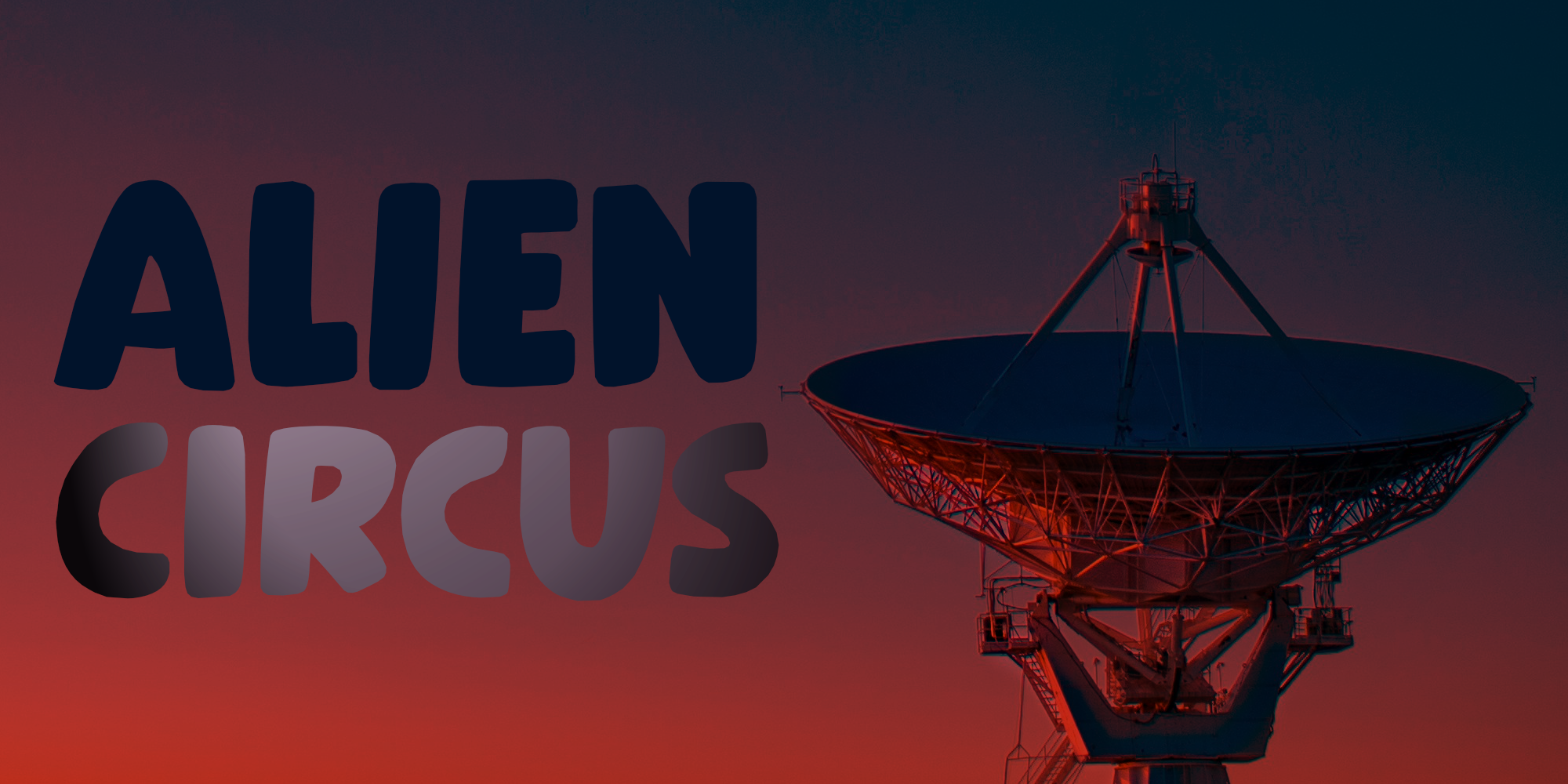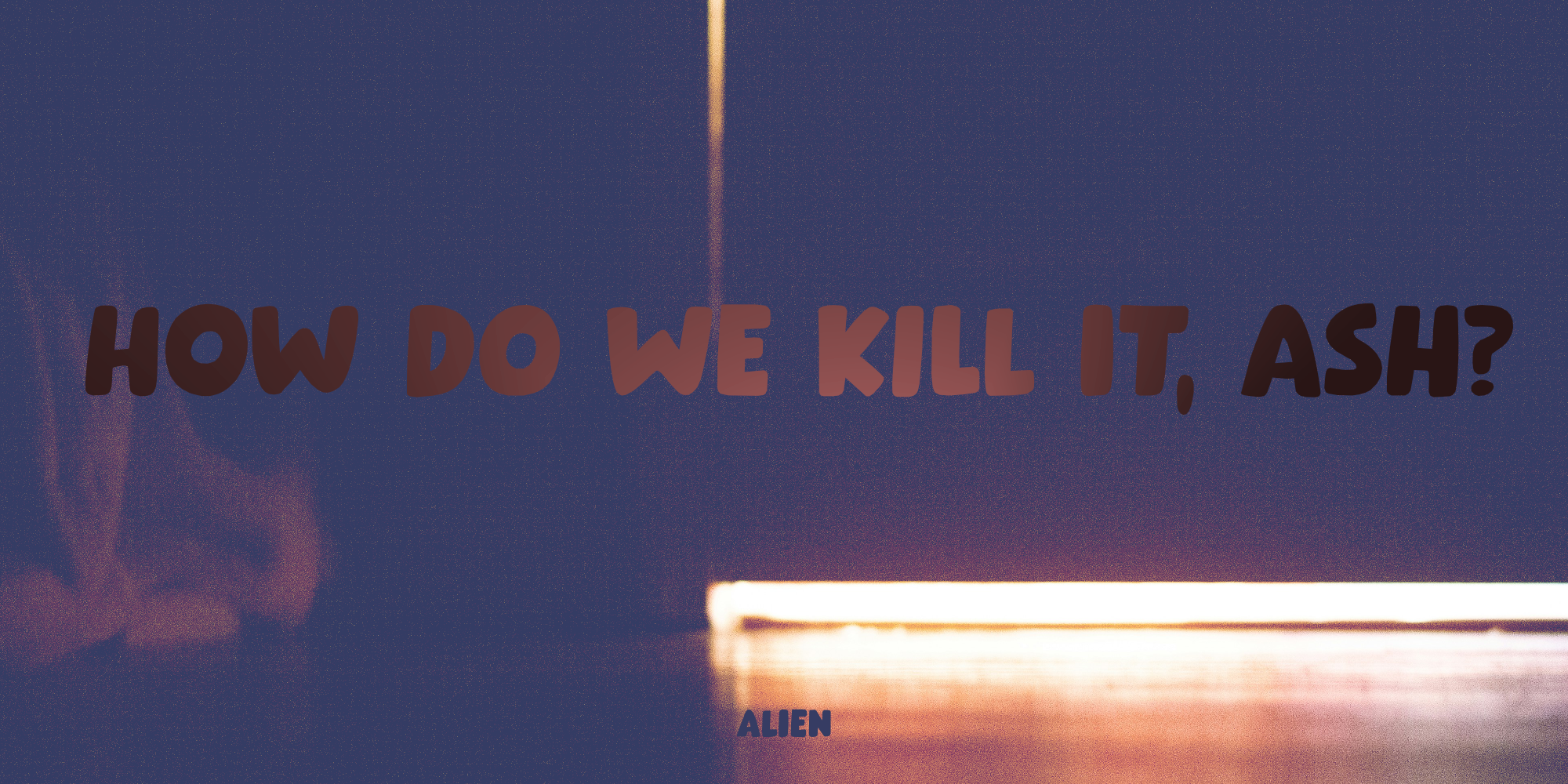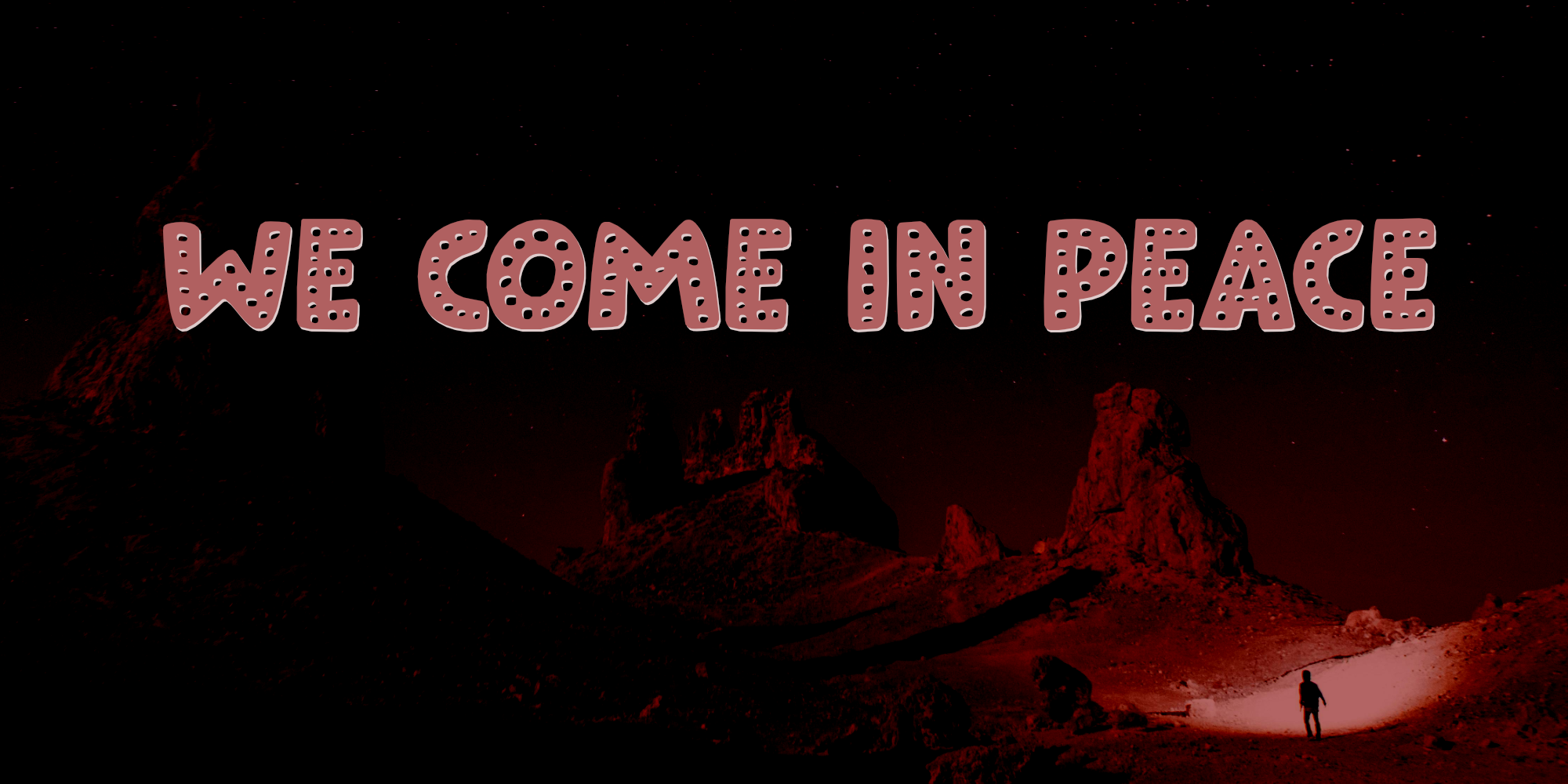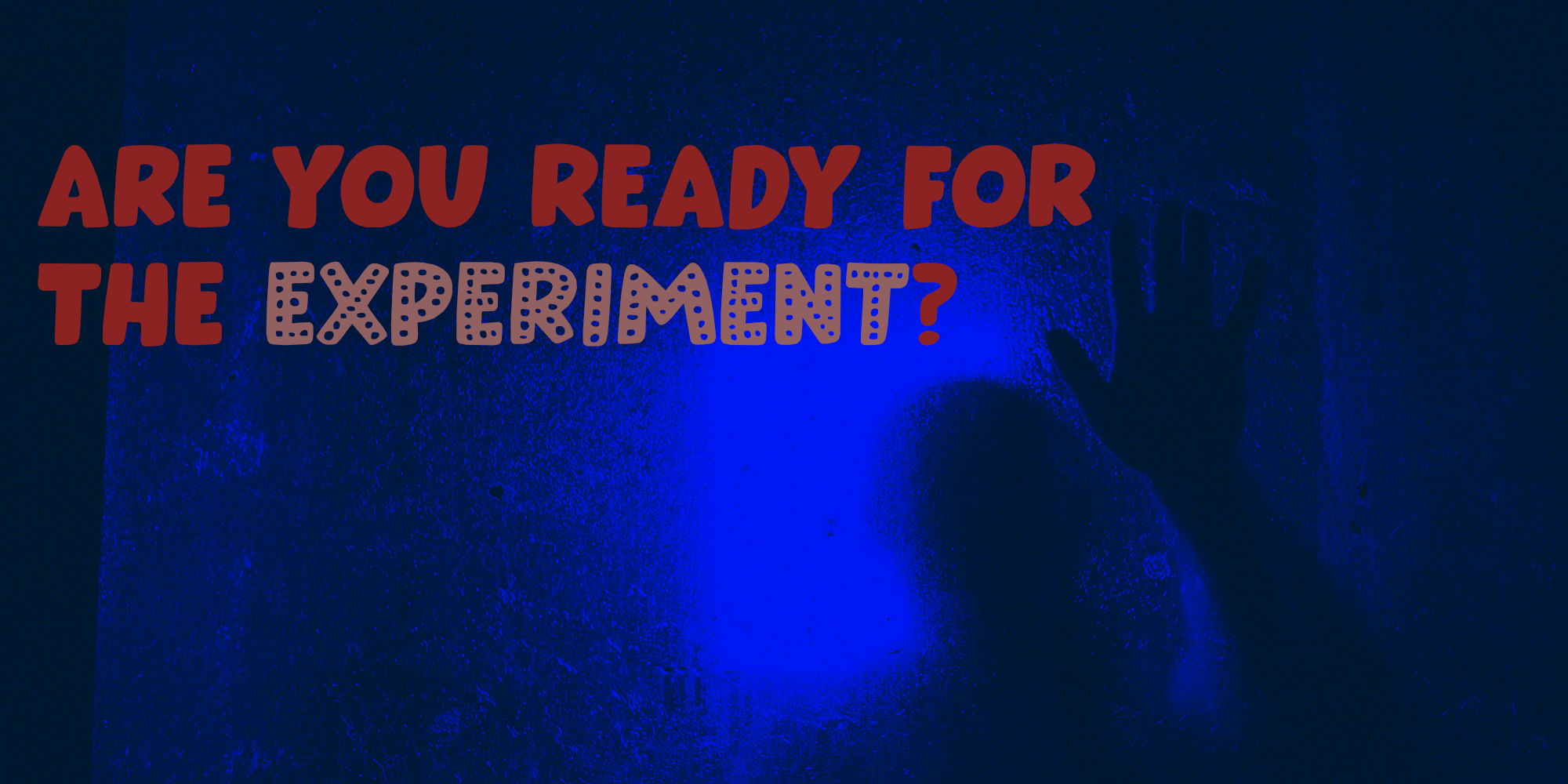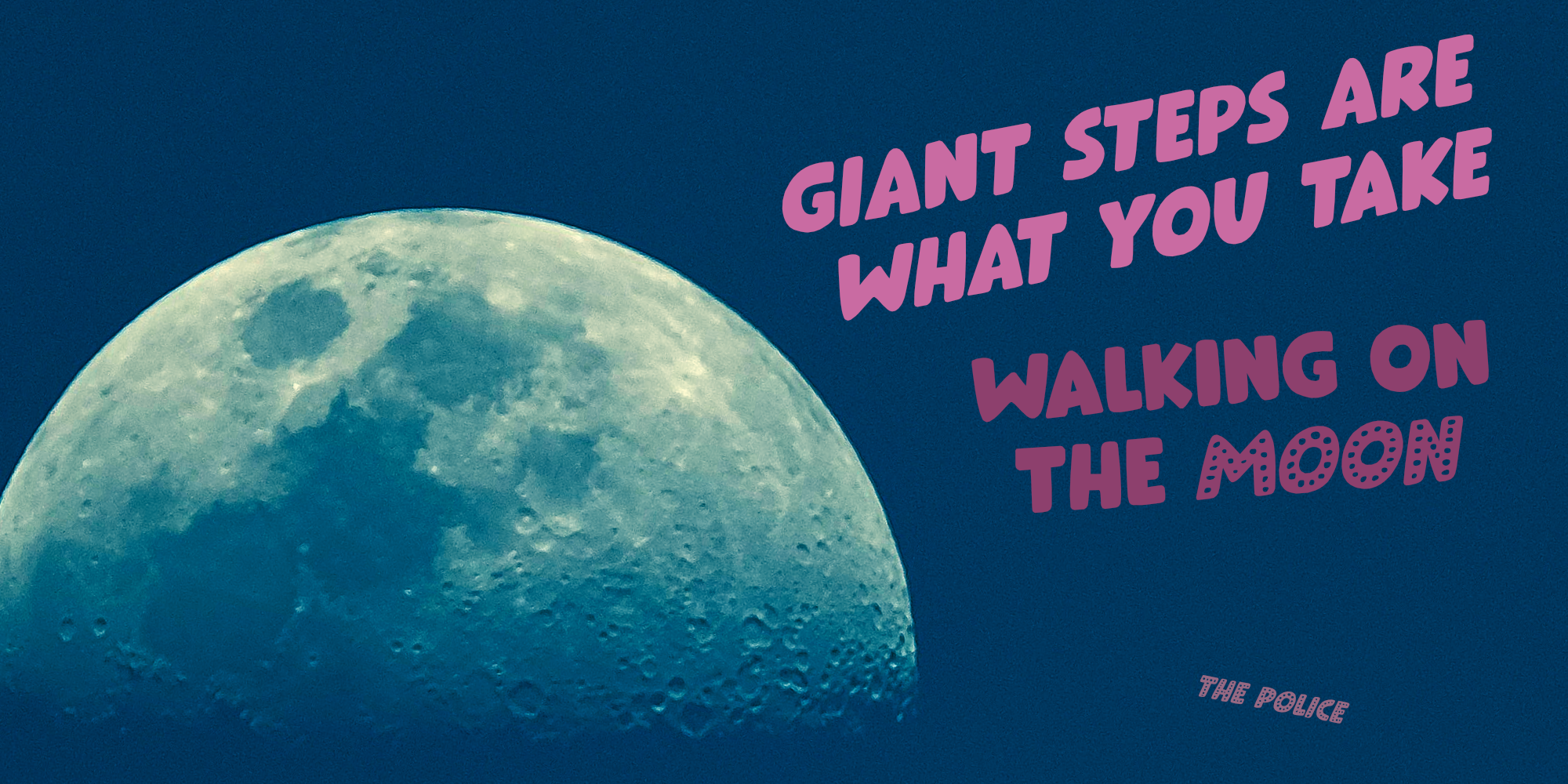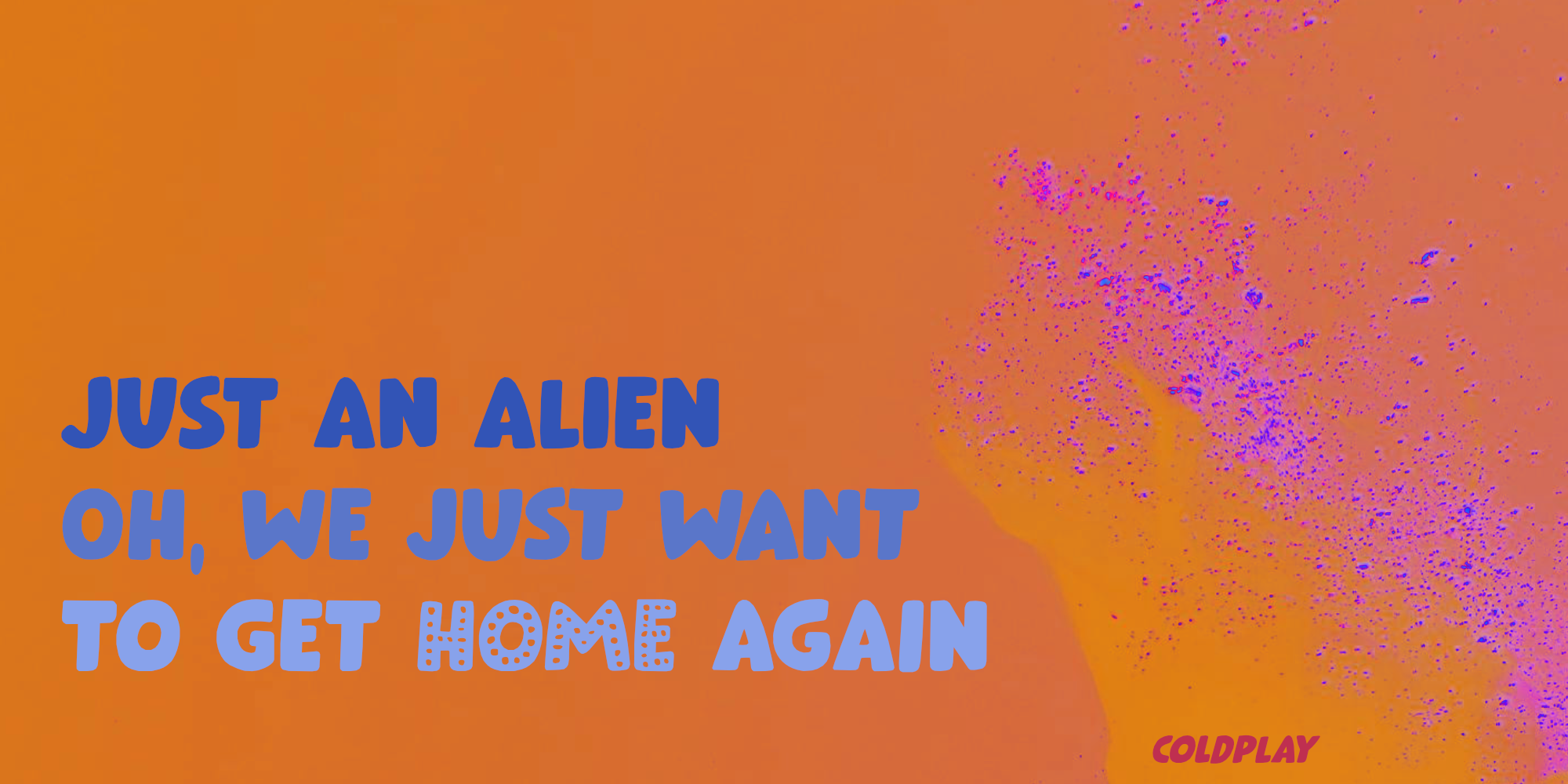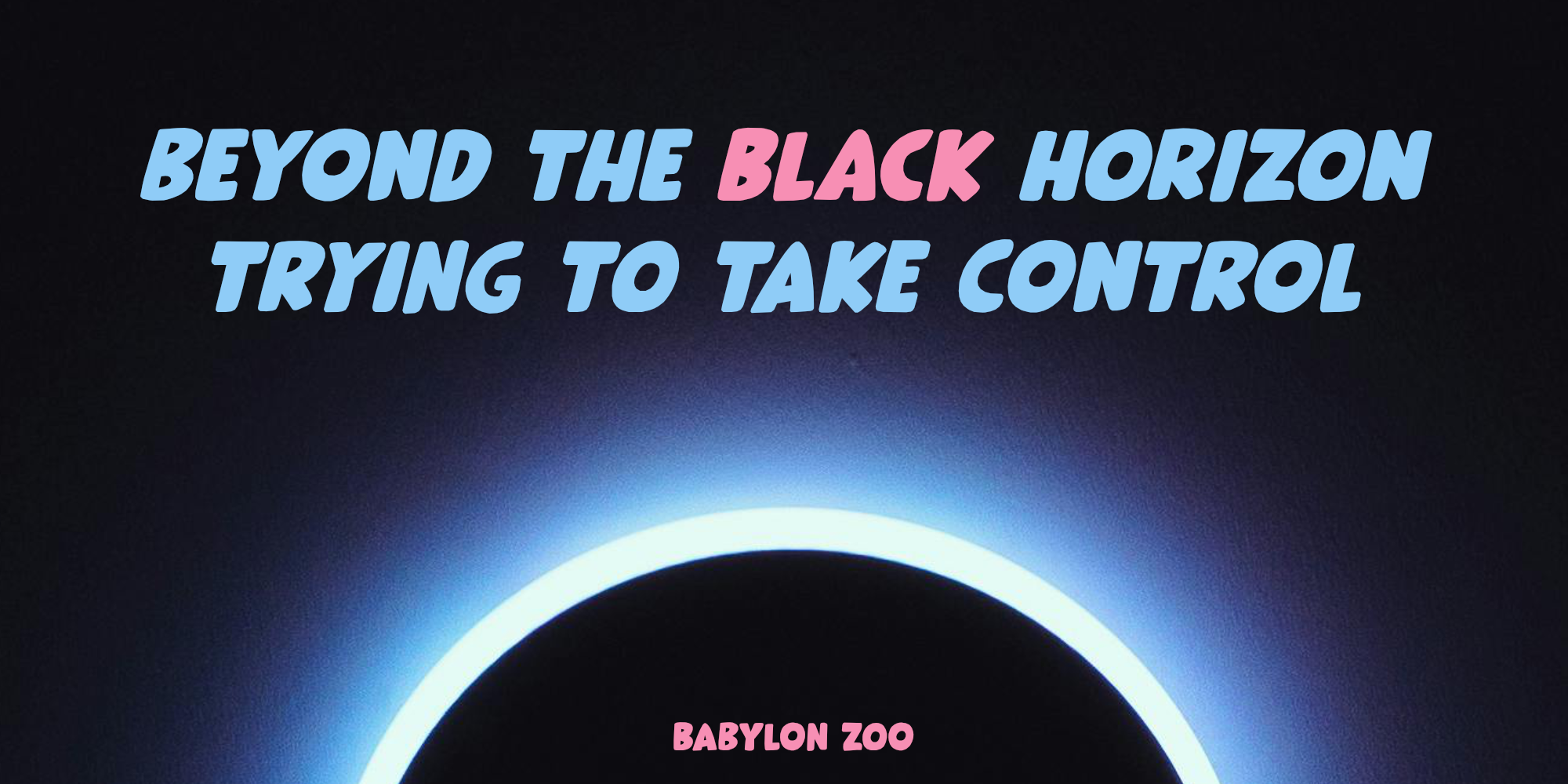
Alien Circus (4 fonts)
Alien Circus is a nice, fat, handmade, laid back kind of font. Nothing fancy, nothing elegant, but uncomplicated and fun to use. I made a normal and a dotted set for you to play with.